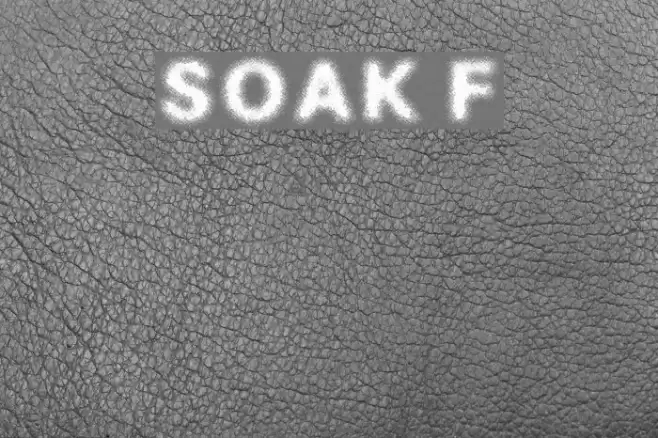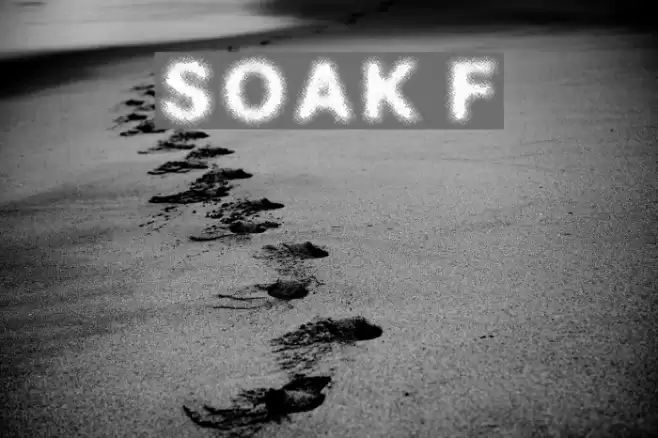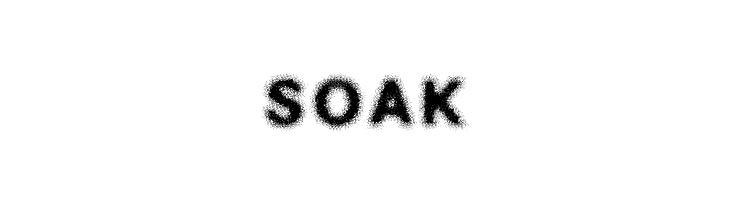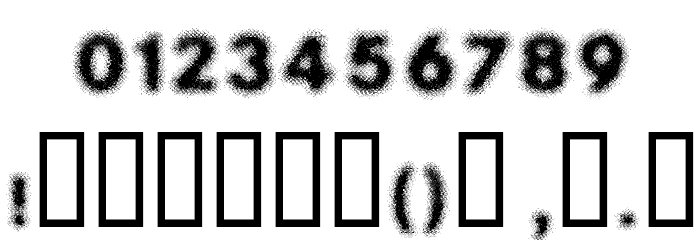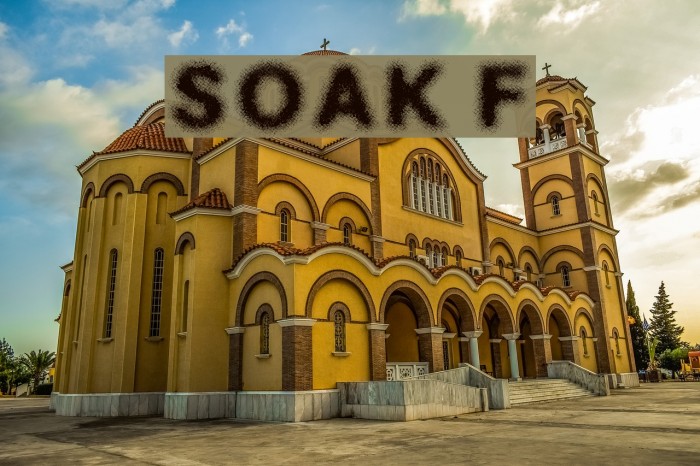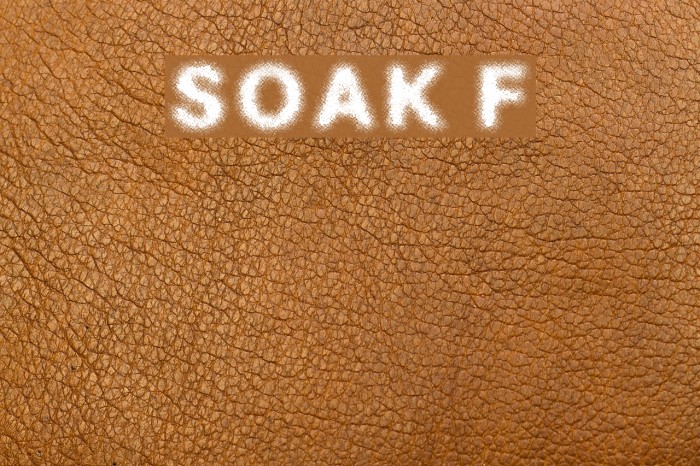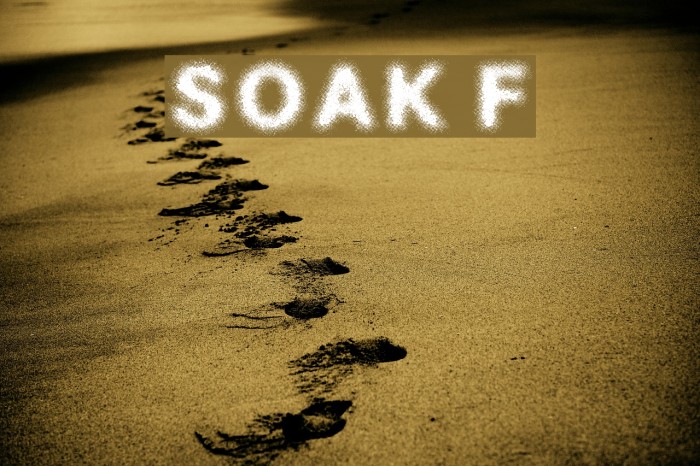
SOAK Font
SOAK Description
This font features a bold and textured style, with a unique fuzzy effect that gives it a distinctive appearance. The uppercase letters are prominent and have a strong presence, making them ideal for attention-grabbing designs. The numbers follow the same bold and textured style, ensuring consistency throughout. The special characters, although not fully visible, seem to maintain the same stylistic approach. This font's unique texture makes it stand out, providing a modern and edgy feel suitable for creative projects.
A bold, textured font with a unique fuzzy effect, ideal for creative designs from Distorted Eroded fonts.
- Proposed Projects: Perfect for posters, album covers, branding projects, and any design requiring a bold statement.